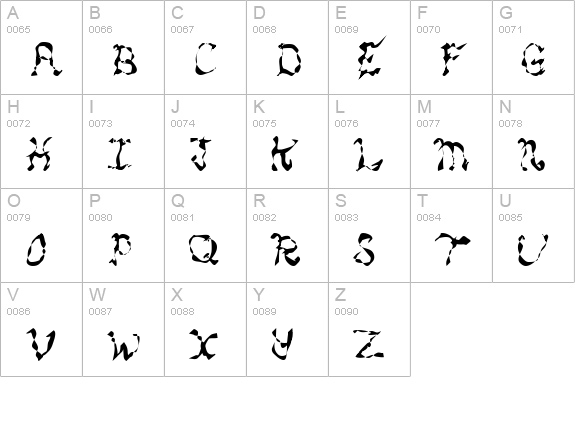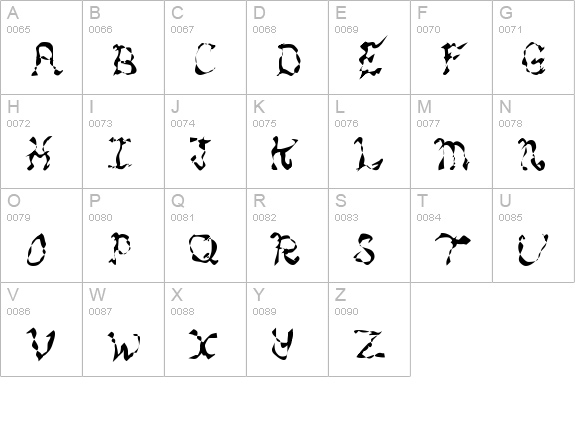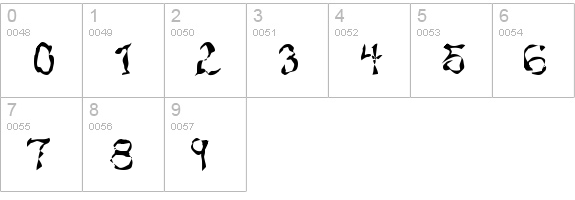
MANIC Font Details
Introducing MANIC font, a striking and dynamic typeface that exudes energy and creativity. Designed to make a bold statement, MANIC is perfect for projects that demand attention and a touch of artistic flair. With its sharp edges and strong, uppercase letters, this font commands the viewer's gaze and leaves a lasting impression. MANIC font is not only visually captivating, but it also offers versatility and flexibility. Its unique design allows it to be used in a wide range of creative projects, from branding and advertising to editorial design and social media graphics. Whether you're designing a logo for a cutting-edge tech startup or creating eye-catching headlines for a fashion magazine, MANIC font will elevate your work to new heights. One of the most appealing aspects of MANIC font is that it is freely available to download at FontsMarket.com. This means that you can harness its power and make a bold statement without any financial constraints. We believe that creativity should be accessible to all, and by offering MANIC font for free, we are empowering designers and artists to unleash their imagination without limitations. So why wait? Download MANIC font today and let its captivating style and versatility transform your design projects. Whether you're a seasoned professional or just starting your creative journey, MANIC font is the perfect companion to help you stand out from the crowd and make a lasting impact. Explore the endless possibilities and unleash your creativity with MANIC font, available for free at FontsMarket.com.